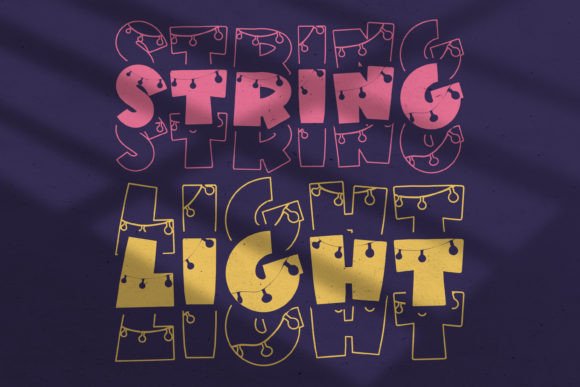
Immerse yourself in the world of String Light, a display font family that radiates charm and elegance. Crafted by the talented WADLEN, this font is an embodiment of creativity and artistic expression. With its whimsical and cohesive characters, String Light has the power to transform your designs into visual masterpieces.
Embark on a creative journey with String Light, a font that ignites imagination and sparks inspiration. Allow its graceful curves and delicate lines to infuse your projects with a sense of timeless beauty. Whether you're a seasoned designer or a novice looking to add a touch of magic to your creations, String Light is the perfect companion.
Discover the versatility of String Light, a font that effortlessly complements a wide range of design projects. Its inherent beauty shines through in custom designs, DIY projects, and any endeavor that calls for a touch of enchantment. With String Light, your designs will exude a captivating aura that leaves a lasting impression.
Indulge in the sheer delight of using String Light, a font that brings joy and satisfaction to the creative process. Its user-friendly nature makes it a breeze to work with, allowing you to effortlessly create designs that resonate with your vision. Embrace the limitless possibilities that String Light offers and watch your creations flourish.
Elevate your designs to new heights with String Light, a font that epitomizes sophistication and charm. Its ability to effortlessly blend with other design elements ensures that your projects will radiate an aura of harmony and cohesion. String Light is the perfect choice for those who seek to create designs that stand out and captivate.
Unlock your creative potential with String Light, a font that ignites your passion for design. Its versatility and timeless appeal make it an essential tool for designers of all levels. Experience the pure joy of creating with a font that inspires and elevates your work. Embrace the String Light journey today and let your creativity soar.